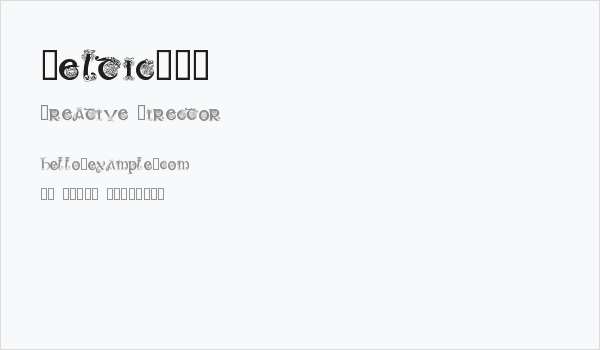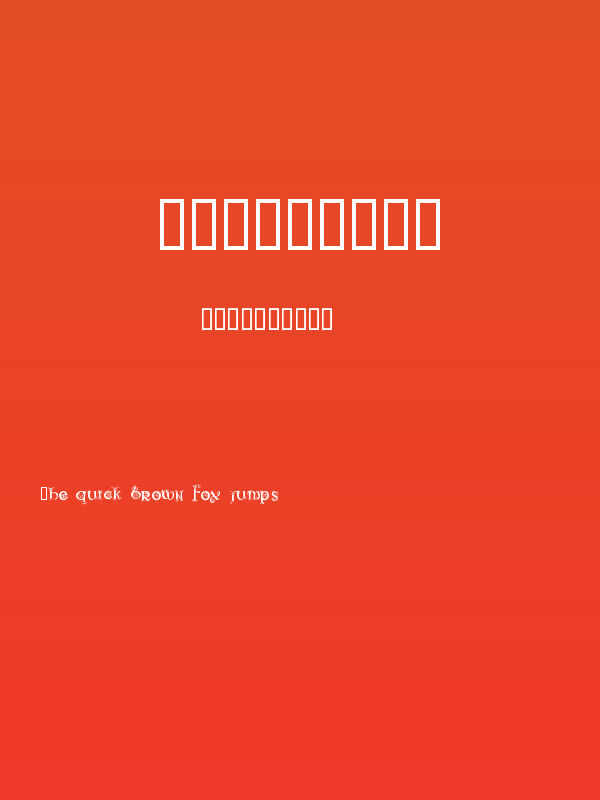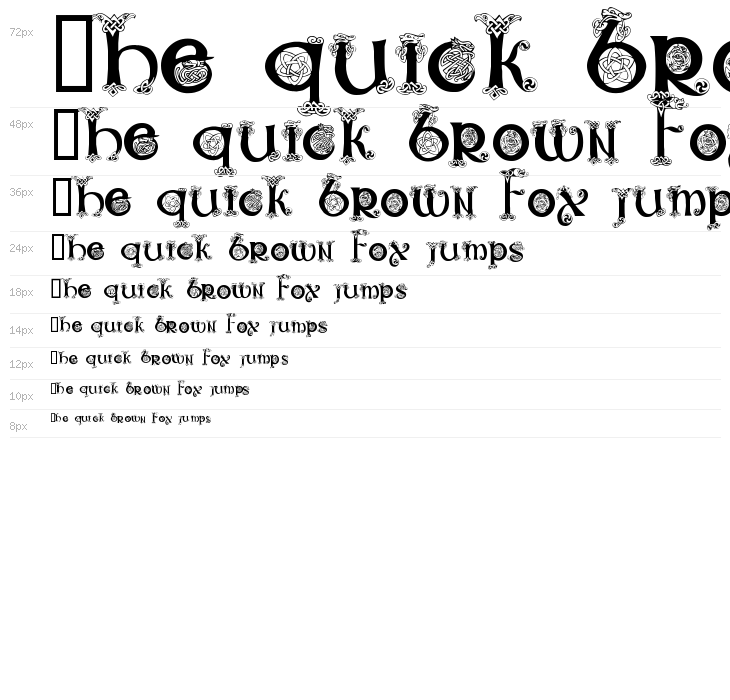
Celtic101 Font
Celtic101 Description
This font features intricate Celtic-inspired designs, characterized by elaborate knotwork and ornamental details. Each letter is adorned with swirling patterns and decorative elements that evoke a sense of ancient artistry. The uppercase letters are particularly ornate, with some incorporating traditional Celtic motifs. The lowercase letters maintain the decorative theme but with slightly less complexity, ensuring readability while retaining the font's unique style. The overall appearance is both historical and artistic, making it suitable for projects that require a touch of Celtic flair.